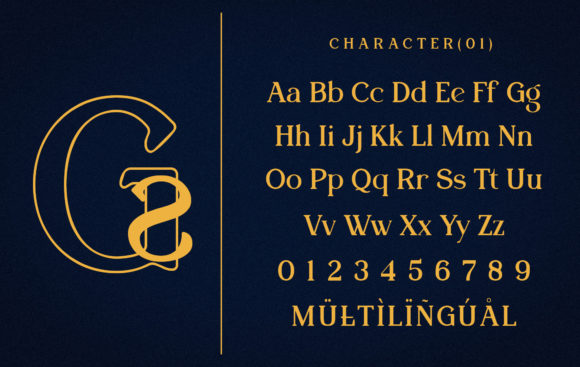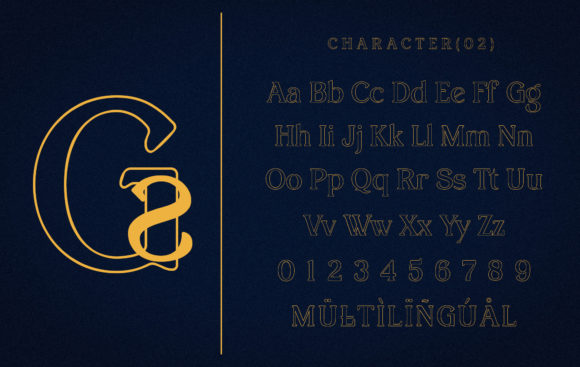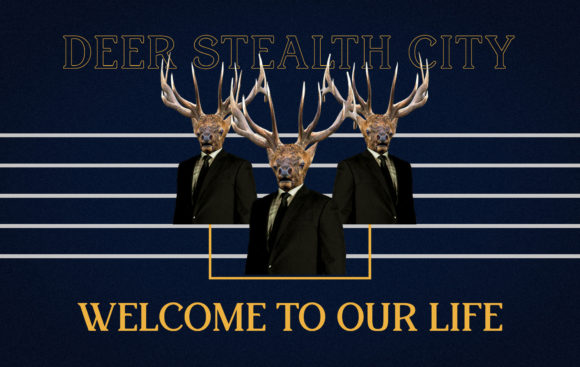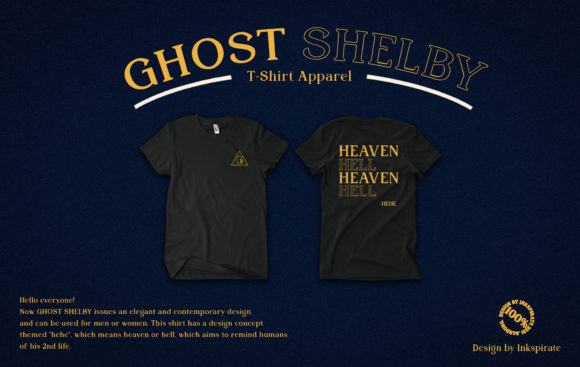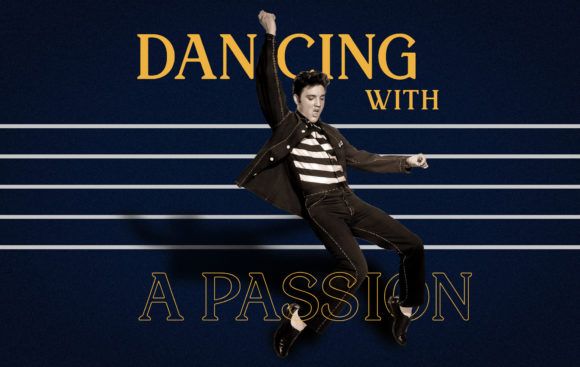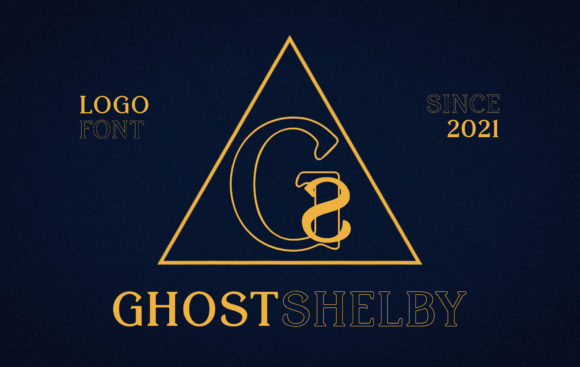
Introduction to Ghost Shelby Font
Ghost Shelby is a vintage-modern style font that will give a different feel to each of your products and works.
You can use this font on poster design, advertising, branding, book covers, style quote, and so on .
Key Features of Ghost Shelby Font